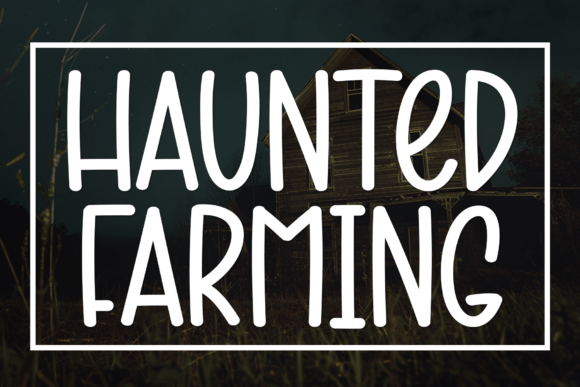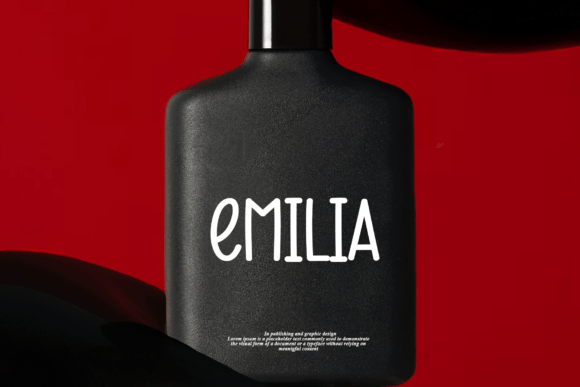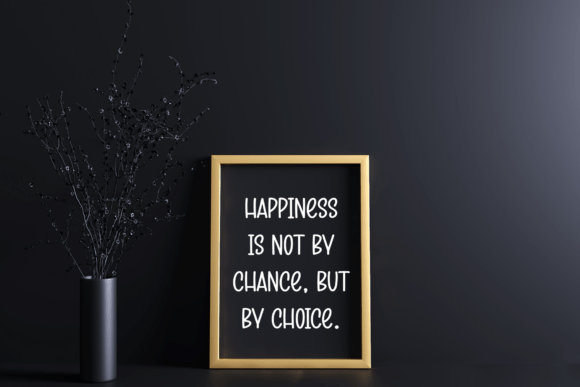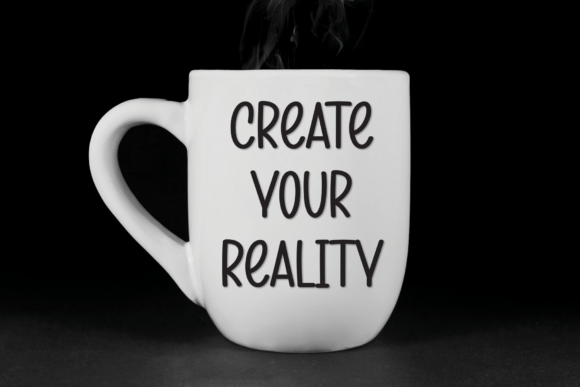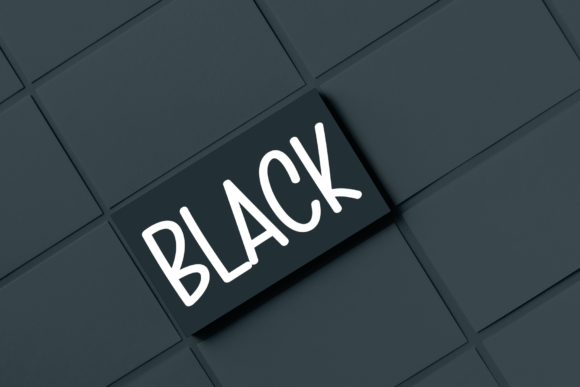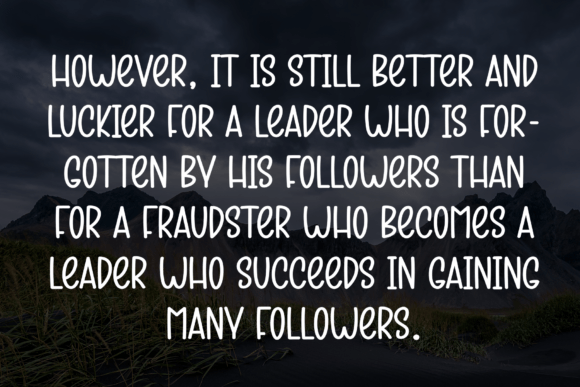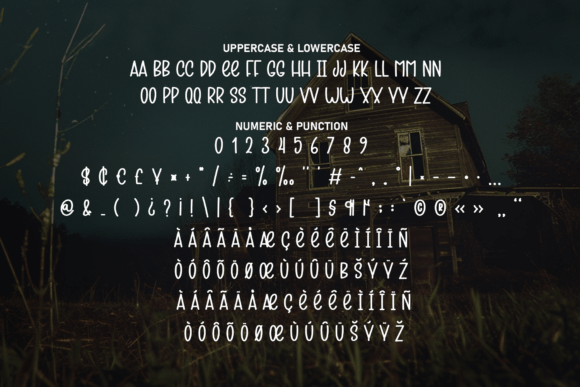
Designing with a Haunted Twist
There’s nothing quite like the thrill of discovering a new font that sparks creativity and sets your imagination ablaze. You’re browsing through a vast library of typography, and suddenly, a font catches your eye. Its clean lines, playful charm, and well-balanced letterforms transport you to a world of endless possibilities. This is exactly what happens when you stumble upon the Haunted Farming Font, a casual display font that embodies the essence of relaxed design.
With its modern simplicity and approachable vibe, Haunted Farming Font is a valuable asset for designers looking to add a fresh and friendly touch to their projects. Whether you’re creating posters, branding materials, packaging, or social media graphics, this font delivers both readability and personality, making it a perfect addition to any design arsenal.
Haunted Farming Font Key Features
- Font Family: A unique, hand-drawn font designed to evoke a spooky, rural atmosphere.
- Unique Characteristics: Includes a range of special characters, such as creepy critters, ghosts, and other eerie elements that can be used to add a touch of whimsy to designs.
Haunted Farming Font Review
Overall, I think the Haunted Farming Font has some great potential, but it also has some limitations that need to be addressed.
- ✨ Unique and quirky design that sets it apart from other fonts
- ✨ Great for creating a spooky or rural-themed atmosphere in designs
- ✨ Wide range of glyphs and characters to choose from, making it versatile for various projects
- ⚠️ Limited legibility, especially at smaller font sizes
- ⚠️ Not ideal for body text or long blocks of text, due to its ornate and decorative nature
- ⚠️ Some characters may be difficult to read or distinguish from one another
In conclusion, the Haunted Farming Font is a great choice for specific projects that require a spooky or rural vibe. However, it’s not a good fit for general use or for designs that require clear, readable text. With some careful selection and use, this font can add a unique touch to your designs.
Tips for Getting the Most Out of the Haunted Farming Font
Use the Haunted Farming Font to create spooky and rustic designs for Halloween, farm-themed designs, or even horror-themed designs.
Experiment with different font sizes, colors, and effects to add depth and texture to your designs.
Combine the Haunted Farming Font with other fonts and graphics to create unique and eye-catching designs.
The Haunted Farming Font is perfect for:
Designing Halloween-themed decorations,
Alternatives to “Haunted Farming Font” for Designers
Cursed Cottage
Cursed Cottage is a font that combines elements of horror and rural themes. It is ideal for designers who want to create a spooky atmosphere in their designs. Compared to Haunted Farming Font, Cursed Cottage has a more cohesive design and is easier to read. It is suitable for use in posters, flyers, and other promotional materials.
Deadwood Script
Deadwood Script is a distressed font that resembles handwritten text. It is perfect for designers who want to create a vintage or western-themed design. Compared to Haunted Farming Font, Deadwood Script has a more rugged and weathered look. It is suitable for use in book covers, album art, and other creative projects.